Retro can be used to simply mean “old fashioned” or old, functioning much like “timeless” or “classic”. Its font type is used in a variety of retro sport garments.
1960s Hippie Font
Catalunya Choo Choo NF Font
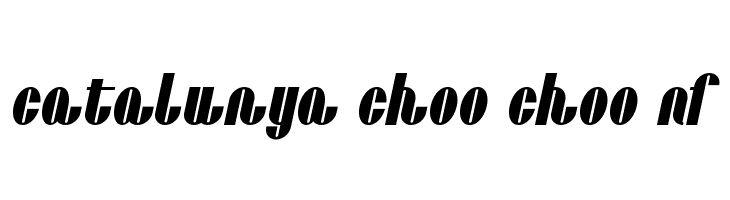
Chell Chrome Bold Font
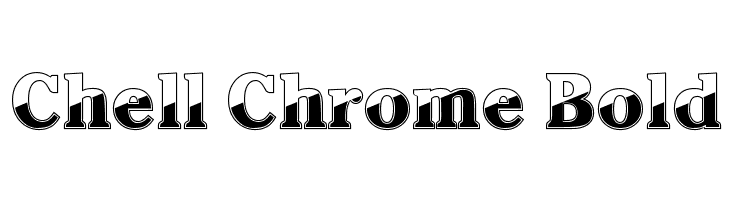
Chelsea Studio Font
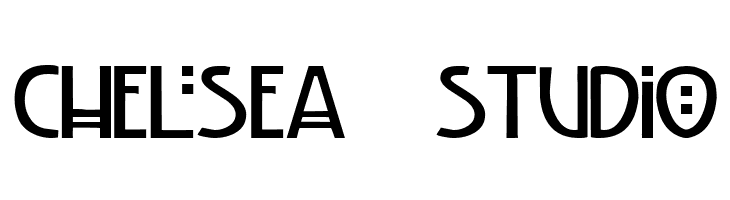
Chi-Town NF Font
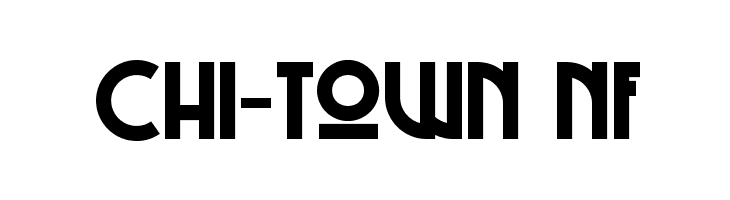
Chippewa Falls NF Font
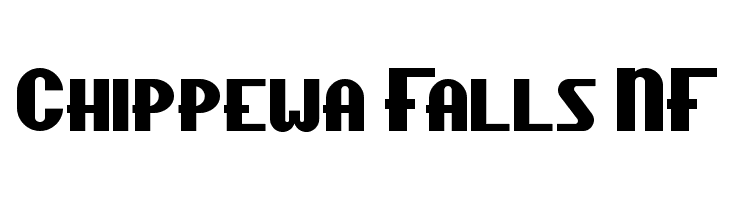
ChippewaFallsNF Font2
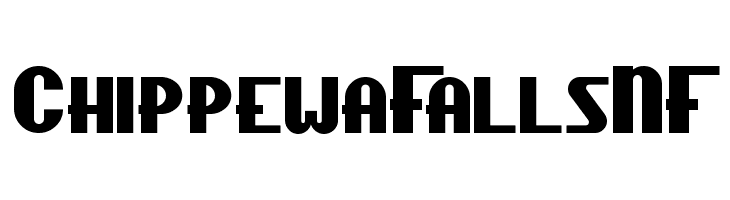
ChocolateBox Font
ChocolateBoxDecorative Font
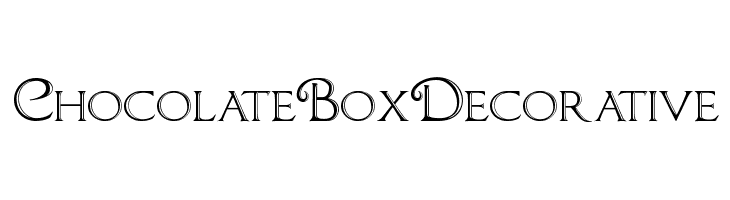
Cinema MF Font
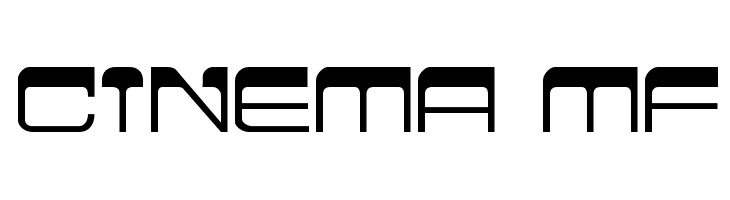
Claritty Font
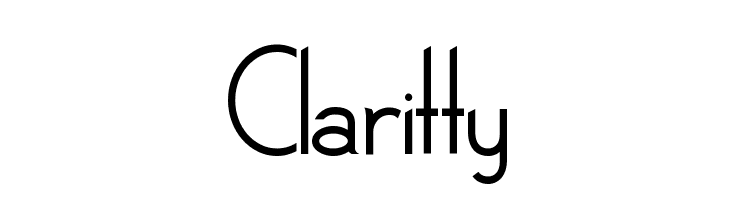
Coyote Deco Italic Font
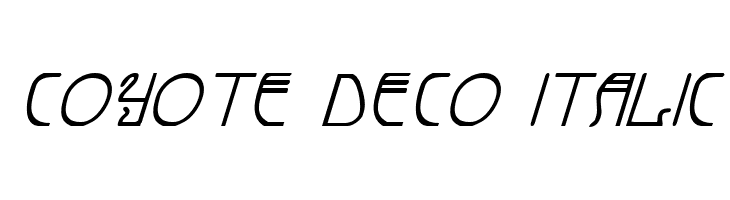
CType AOE Font
Daddy Longlegs NF Font
Daisy Regular Font
Darmstadt Arts NF Font
Day Poster Black NF Font
Day Poster Shadow NF Font
Debonair Inline NF Font
Decadence condensed Font
Baldur Shadow Font
Becker Black NF Font
Bellerose Light:1.0 Font
Bellhop NF Font
Belshaw Font
Benjamin Franklin Font
Bete Noir NF Font
Bifur Font
Big Apple NF Font
Big Top Font
AerojonesNF Font
Air Conditioner Font
Airstream NF Font
Americana Dreams Font
Anagram NF Font
Anagram Shadow NF Font
Anchor Steam NF Font
Aranea Font
Art Nouveau Caps Font